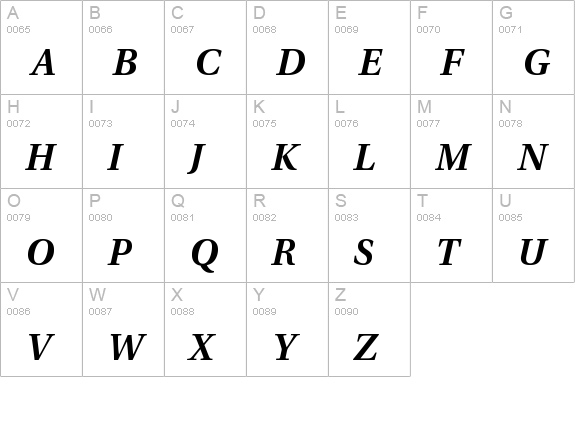
Utopia Std Semibold Italic Font Details
Utopia Std Semibold Italic is a sub-bold, structured, italic variant in the Utopia typeface family \xE2\x80\x94 well suited to sub-headlines and emphasised passages.
Utopia Std Semibold Italic font is an exquisite blend of elegance and modernity. Its sleek and sophisticated design exudes a sense of confidence and professionalism, making it the perfect choice for a wide range of design projects. With its bold and italicized style, Utopia Std Semibold Italic font adds a touch of flair and emphasis to any text. Whether you're designing a logo, creating a brochure, or crafting a website, this font will effortlessly elevate your design to new heights. The smooth and flowing curves of Utopia Std Semibold Italic font create a harmonious balance between strength and grace. The italicized slant adds a dynamic and dynamic touch, giving your words a sense of motion and energy. One of the most appealing aspects of Utopia Std Semibold Italic font is that it is freely available to download at FontsMarket.com. This means that you can enhance your designs without any additional cost, making it an ideal choice for both personal and commercial projects. The versatility of Utopia Std Semibold Italic font allows it to seamlessly adapt to various design styles and contexts. Whether you're going for a minimalist and clean look or a bold and eye-catching design, this font will exceed your expectations. Enhance your projects with the timeless elegance and modern sophistication of Utopia Std Semibold Italic font. Download it for free at FontsMarket.com and unlock a world of endless design possibilities.